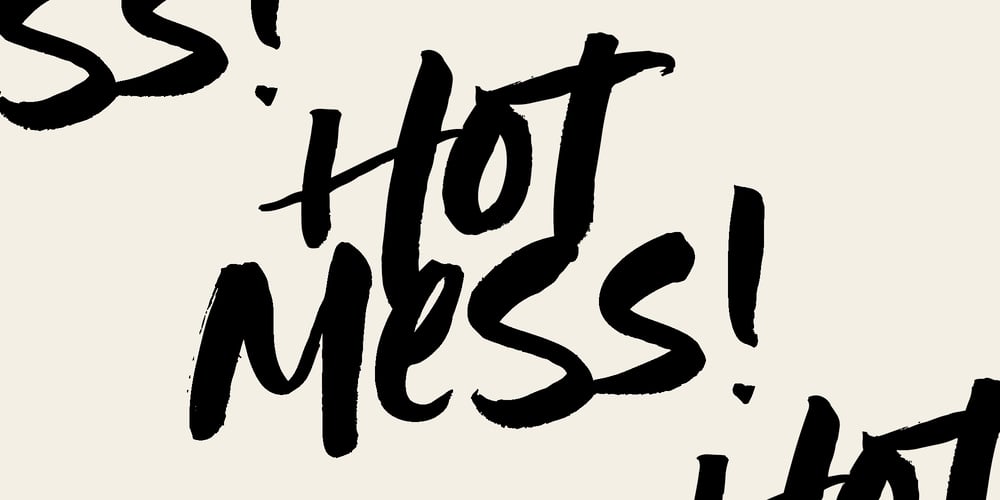
Hot Mess Font Family was designed by Sam Parrett and published by Set Sail Studios. Hot Mess contains 1 styles and family package options. It’s bold, brazen, and irresistibly fun – it’s Hot Mess! A super realistic hand brushed font just raring to get the party started. It’s guaranteed to leave a vibrant, long lasting impression on social media posts, advertisements, posters, products packaging & more.Ligatures • Hot Mess includes 17 ligatures built in to the font. These letter pairs help to create authentic, naturally flowing hand-lettering. Ligatures are supported by most desktop graphics & text software (not just the fancy ones!), including Photoshop, Illustrator, InDesign, Word, Pages & Keynote. Ligatures will automatically be switched on when using supported software.Language Support • English, French, Italian, Spanish, Portuguese, German, Swedish, Norwegian, Danish, Dutch, Finnish, Indonesian, Malay, Hungarian, Polish, Croatian, Turkish, Romanian, Czech, Latvian, Lithuanian, Slovak, Slovenian.Swashes • Hot Mess includes 4 swashes; use these to underline your script text and add a stylish finishing touch. Simply type any of the square brackets to generate a swash [ ] { }